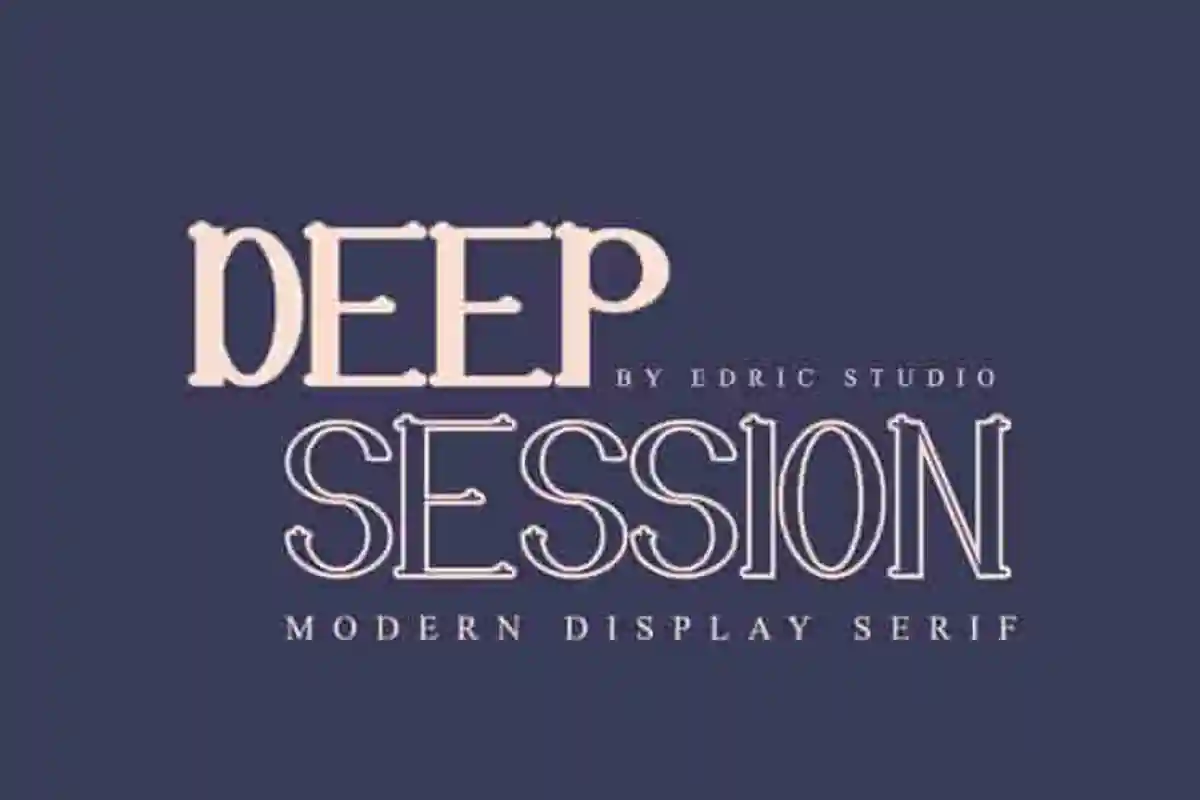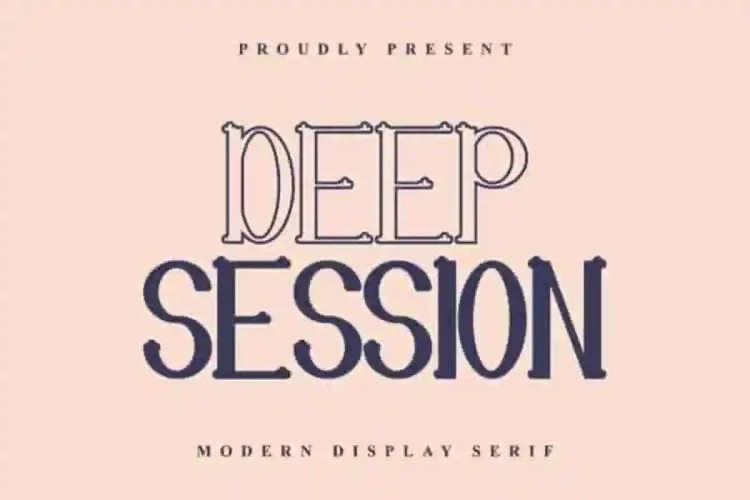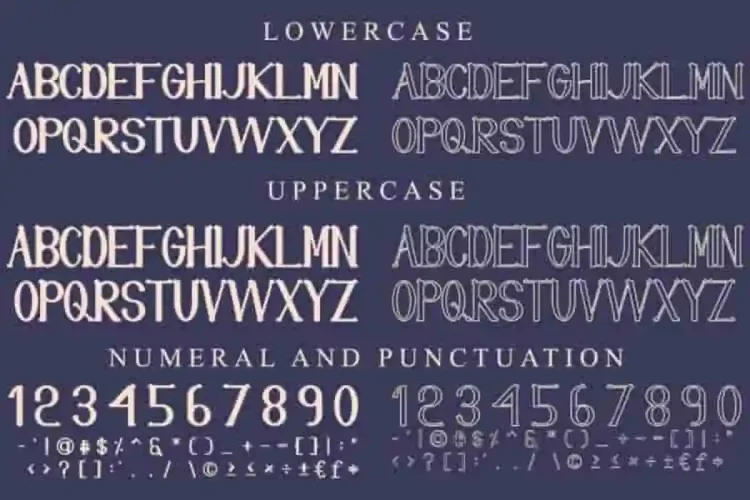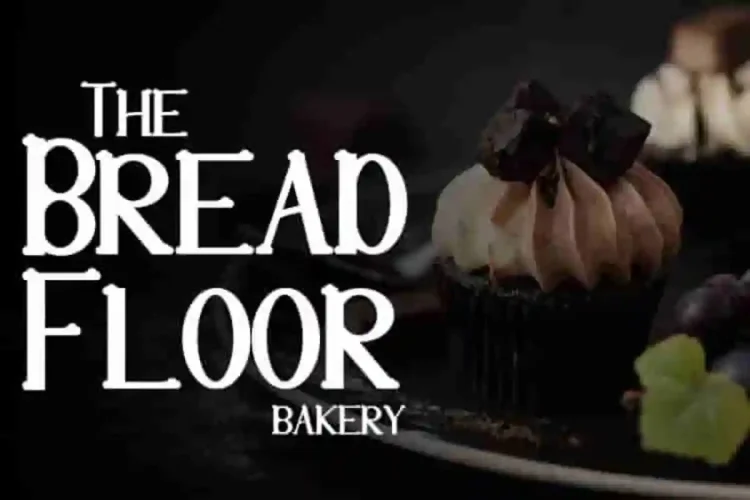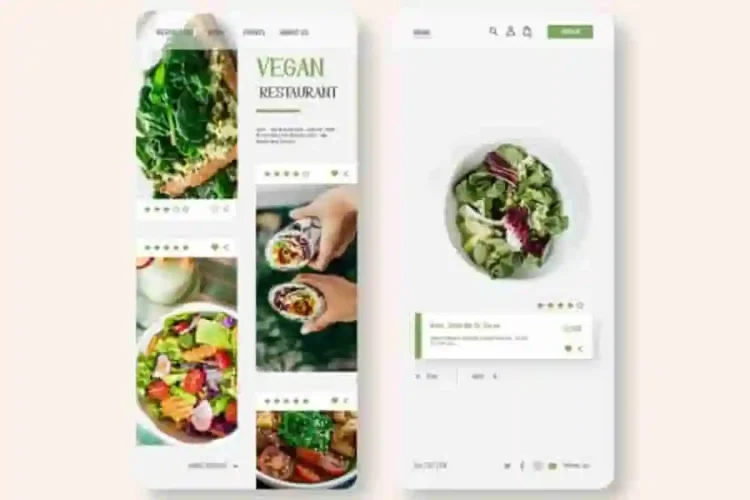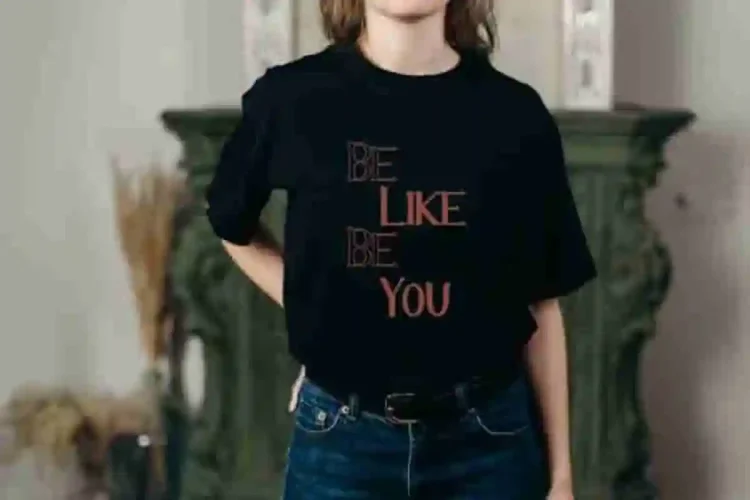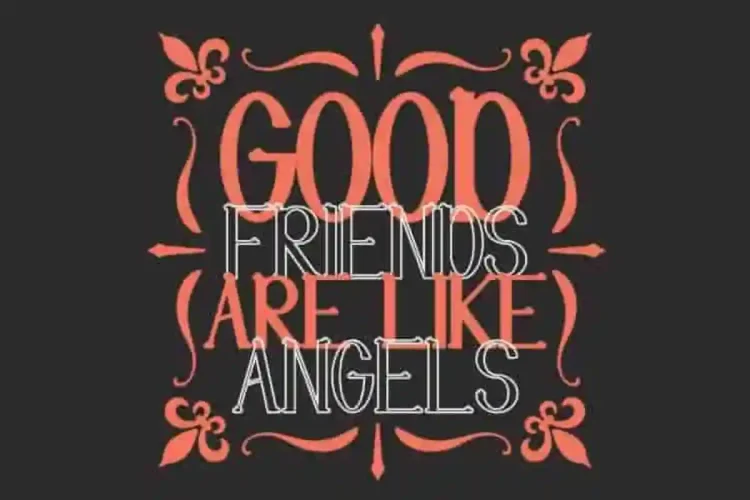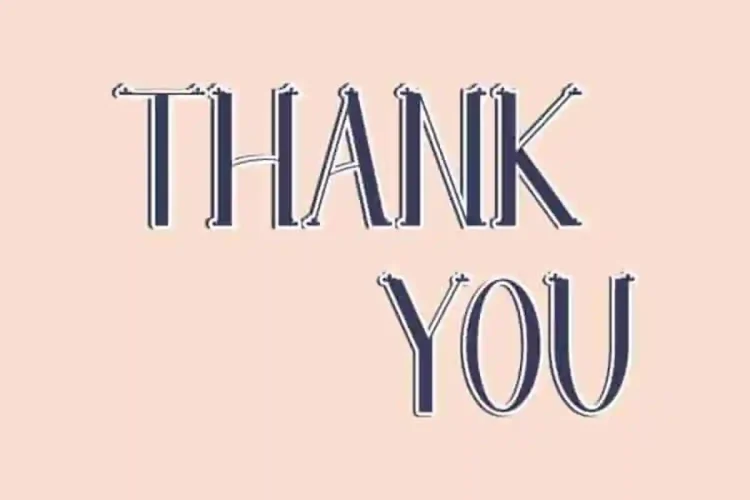
Deep Session Display Serif Font
Please meet our newest font : Deep Session Display Serif Font
Deep Session Display Serif Font is a Decorative Display Serif font, made here in Indonesia. The artists/designers of this beautiful tyeface is Renata and Sarah Suci.
The styles of Deep Session Display Serif Font are classic, luxury, gold, vintage, stylish, sophisticated and casual.
Deep Session Display Serif Font will be great for any projects including : branding, logo, stationery, business card, signage, flyer, brochure etc. Almost all industries will be match for this typeface: wedding, events, real estate, architect, law firm, florist, gardening, makeup artist, travel, hotel, musician etc.